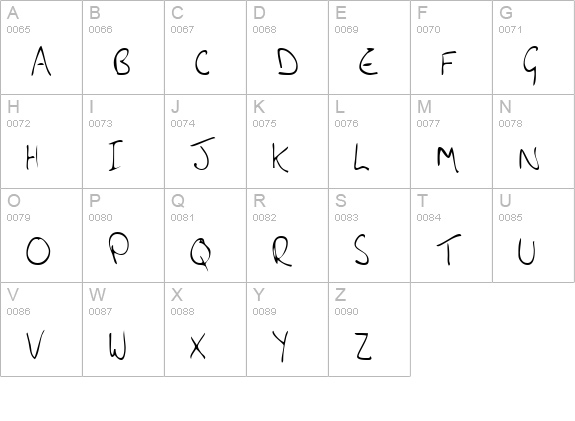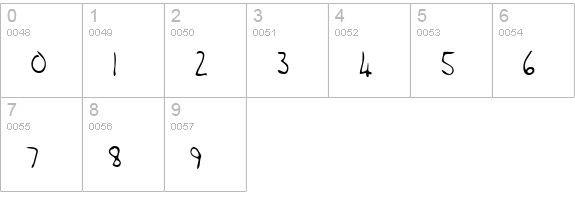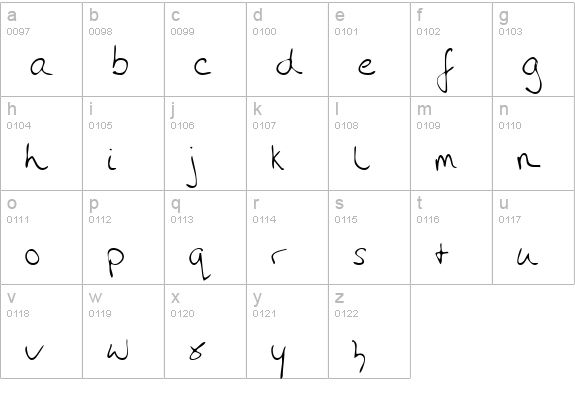
AmandasHand Regular is the standard, neutral variant in the AmandasHand typeface family \xE2\x80\x94 well suited to general body text, paragraphs, and standard typographic work.
AmandasHand Regular font is a charming and versatile typeface that exudes elegance and sophistication. With its delicate curves and flowing lines, this font is perfect for adding a touch of grace to your designs. Whether you are creating invitations, greeting cards, or branding materials, AmandasHand Regular will bring a sense of refinement to your projects. What's even better is that AmandasHand Regular font is available for free download at FontsMarket.com. This means you can easily access this beautiful font and use it in your personal and commercial projects without any cost. Don't miss out on the opportunity to enhance your designs with the timeless beauty of AmandasHand Regular font. Download it today and elevate your creations to new heights of sophistication.